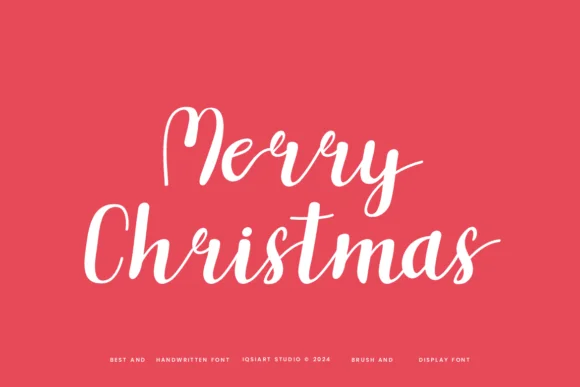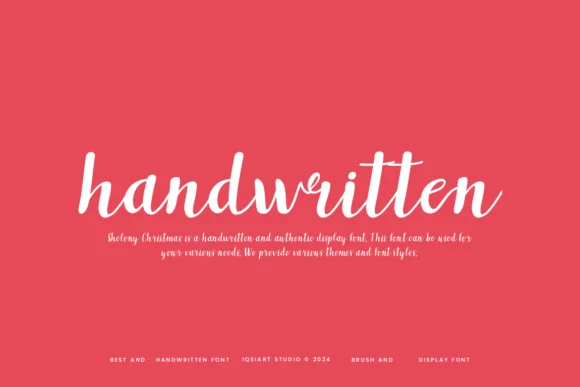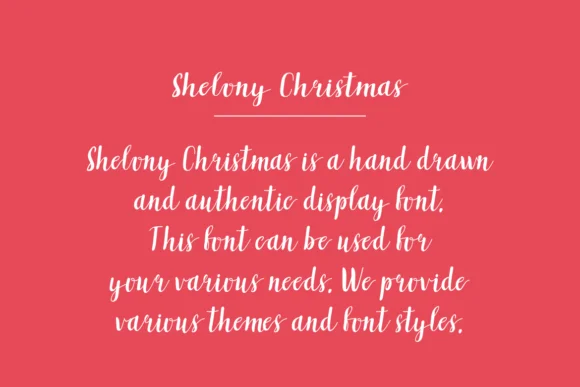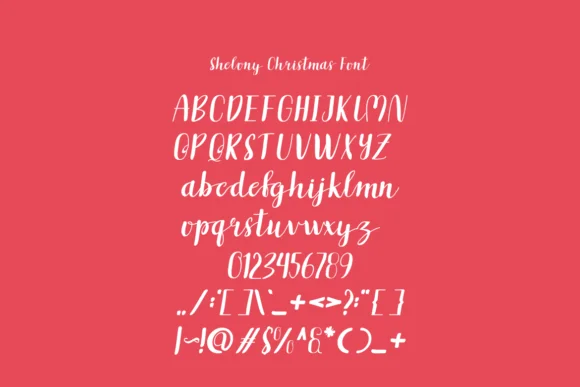
Shelony Christmas Font
This distinctive font is perfect for personalized Christmas cards, elegant holiday invitations, sophisticated Christmas branding, custom seasonal stationery, refined Christmas packaging, upscale holiday advertisements, distinguished Christmas events, premium seasonal communications, exclusive Christmas celebrations, and sophisticated holiday messaging materials.
Shelony Christmas Font is exciting because it embodies a unique blend of contemporary elegance and festive charm through its distinctively crafted letterforms that bring sophisticated personality to Christmas communications. The font features gracefully balanced characters with refined curves and subtle seasonal accents that create typography with both modern appeal and timeless Christmas spirit, incorporating delicate flourishes and elegant proportions that reflect careful attention to both artistic beauty and functional readability. Each letter showcases individual character while maintaining harmonious unity with others, creating text that feels both personally distinctive and universally appealing. The design captures the essence of refined Christmas celebration, offering typography that feels both exclusive and warmly inviting, perfect for projects that require sophistication without sacrificing the joy and accessibility that make Christmas special for everyone.
The Shelony Christmas Font family includes refined style variations: Regular, Bold, Light, Elegant, and Script versions. The collection features special sophisticated elements including graceful swashes, refined flourishes, elegant ligatures, and distinctive ornamental details. Additional components include sophisticated borders, elegant frames, refined decorations, and distinguished ornamental designs that enhance the font's Shelony Christmas appeal and create cohesive upscale holiday themes.
Luxury designers and sophisticated celebrants will find Shelony Christmas Font to be an exceptional choice for creating distinguished holiday communications that stand out from ordinary Christmas typography while maintaining broad appeal. This elegantly crafted font transforms standard Christmas messaging into refined expressions that resonate with audiences who appreciate both sophistication and authentic festive spirit in their holiday communications.
The typeface includes comprehensive character support with sophisticated styling that maintains excellent readability while conveying the refined elegance and distinctive personality of upscale Christmas celebrations. The font's elegant design ensures stunning results across both intimate luxury applications and broader sophisticated holiday campaigns.
Perfect for luxury brands, sophisticated event planners, refined Christmas celebrations, and distinguished seasonal marketing, this font delivers elegant visual impact that communicates sophistication, distinction, and the refined beauty of celebrating Christmas with grace, style, and the kind of sophisticated charm that makes holiday communications truly memorable and distinctive.